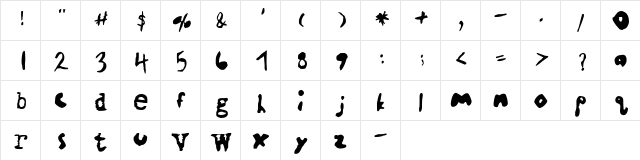
Contrary Medium
Design Context for Contrary Typeface
Contrary is a composed and adaptable typeface that performs quietly and consistently across a wide range of design contexts.